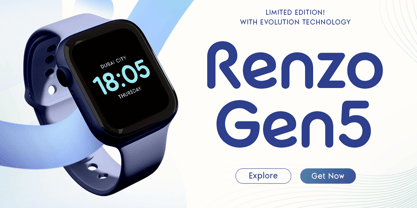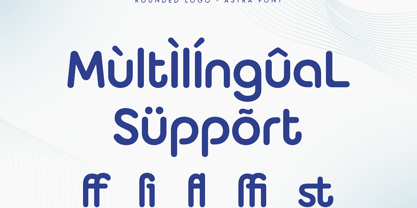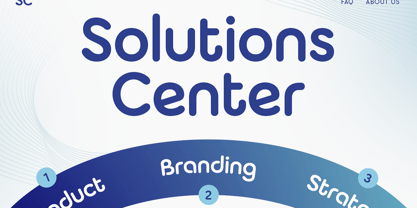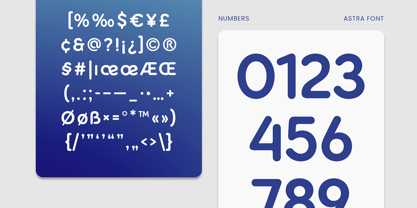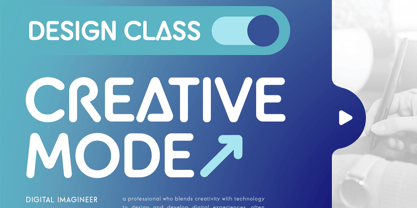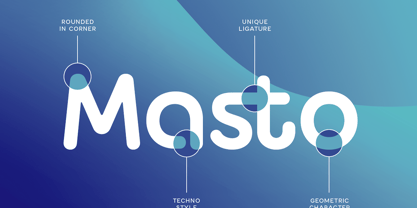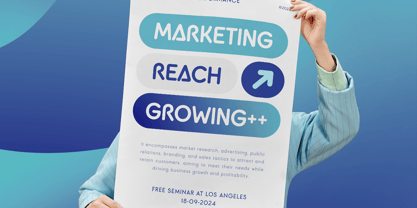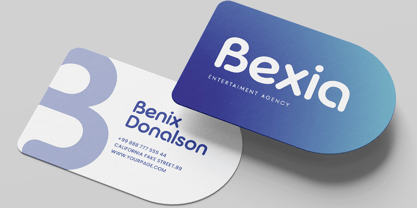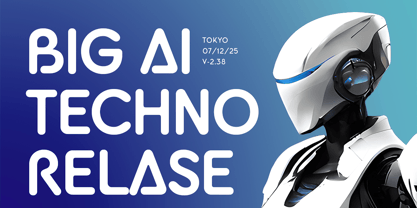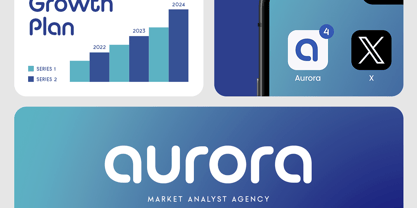
Faelori
by Only Fonts
The Faelori Font Family was designed by Olivia Love and published by Only Fonts. Faelori contains 1 styles. More about this family
Faelori – Modern Rounded Logo Font Faelori is a modern rounded logo font designed to infuse warmth, simplicity, and contemporary elegance into your branding projects. Drawing inspiration from clean minimalist design and smooth geometric forms, Faelori showcases soft rounded letterforms and beautifully crafted ligatures, creating a friendly yet highly professional visual identity. Each character is meticulously designed to ensure a balanced appearance that feels approachable, stylish, and memorable. Ideal for logos, startups, technology brands, lifestyle businesses, beauty products, cafés, children's brands, mobile applications, creative agencies, product packaging, websites, social media graphics, and modern marketing materials, Faelori seamlessly adapts to a diverse range of design styles. Its clean construction and rounded details enhance readability while imparting a welcoming and sophisticated personality across both print and digital media. Designed with versatility in mind, Faelori includes elegant ligature characters and features that empower designers to create distinctive logos and custom wordmarks effortlessly. Whether launching a new business, refreshing an existing brand, or crafting promotional content, Faelori provides the flexibility needed to achieve polished and professional results while maintaining a soft and modern aesthetic. With its harmonious curves, premium craftsmanship, and timeless contemporary style, Faelori elevates ordinary typography into a memorable branding element that conveys creativity, trust, and modern design. It is an essential addition to every designer's toolkit for crafting clean, approachable, and visually engaging brand identities. Faelori Font Features: • Rounded ligature characters • Modern rounded logo style • Uppercase and lowercase letters • Numerals, punctuation, and symbols • Multilingual support • Perfect for logos, branding, startups, lifestyle brands, packaging, websites, and creative marketing materials • Suitable for both print and digital projects
Designers: Olivia Love
Foundry: Only Fonts